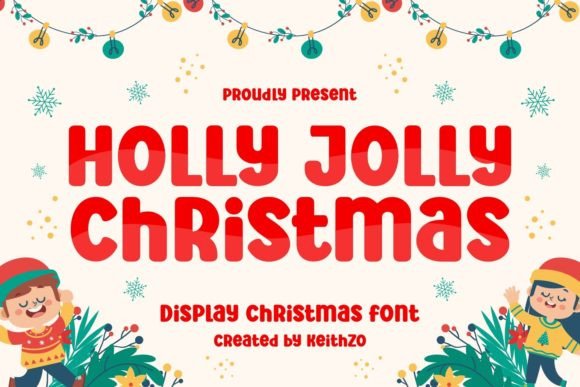
Looking to add a festive touch to your Christmas designs? Look no further than the Holly Jolly Christmas Font. Created by Keithzo (7NTypes), this bold display typeface is the perfect choice for spreading holiday cheer.
With its playful and fun letters, the Holly Jolly Christmas Font brings a sense of merriment to any project. Whether you're designing holiday cards, banners, or other festive creations, this whimsical font will instantly bring the spirit of the season to life.
Capture the attention of your audience with this eye-catching font. Its unique and creative design will make your Christmas designs stand out from the crowd. Imagine the delight on your loved ones' faces when they receive a holiday card featuring this captivating font.
Not only does the Holly Jolly Christmas Font evoke a sense of joy and excitement, but it is also incredibly versatile. Its bold and distinct letters make it ideal for comic lettering, allowing you to create captivating and engaging visual narratives.